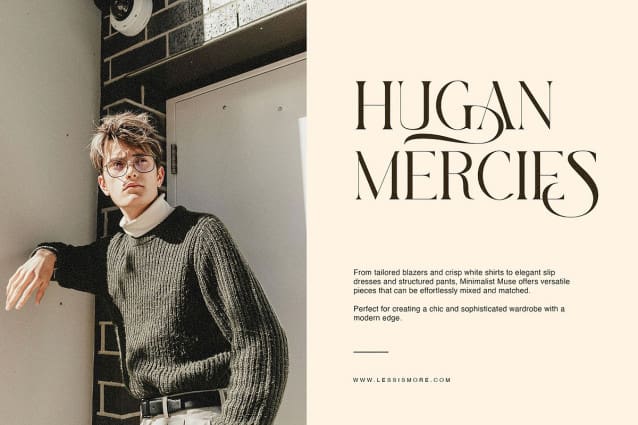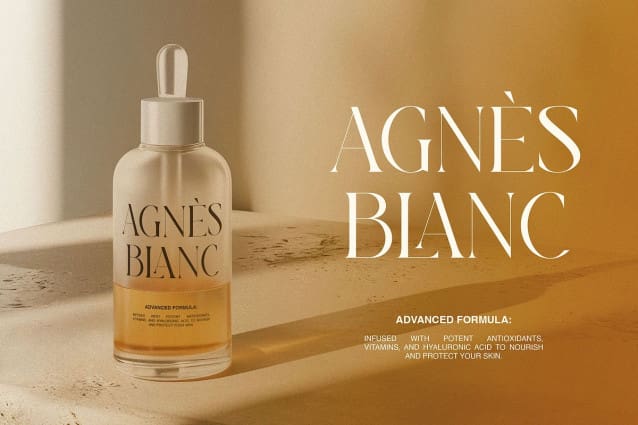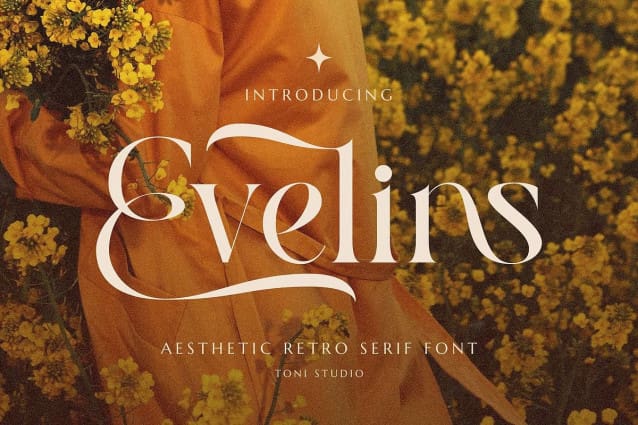
Evelins Font
Evelins Font is the perfect blend of modern moments and a touch of undisturbed romance. The graceful appearance of this serif font brings a luxurious and unique feel, carefully transforming a romantic atmosphere into elegant and alluring letters. Perfect for a variety of projects, Evelins Font is versatile enough to enhance everything from logos to crafts, posters to books, making every brand expression unique and special.
It’s the perfect choice for quote designs, print templates, packaging, invitations, and product labels. Whether for advertising efforts or wedding projects, this font adds a touch of refinement and sophistication. Featuring a complete range of upper and lower case letters, punctuation, symbols, numbers, and ligatures, this typeface is the perfect companion for designers looking for a modern, stylish, and classy touch.